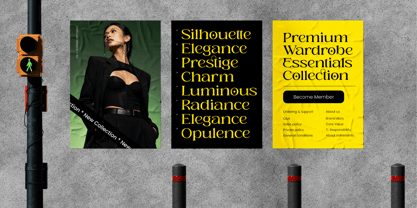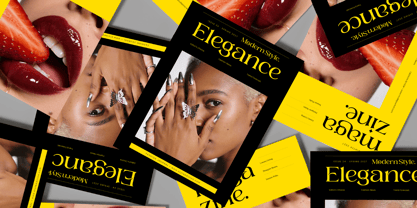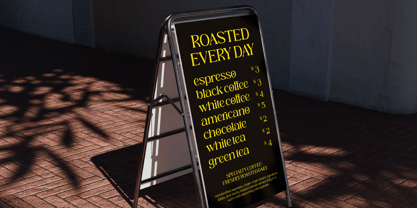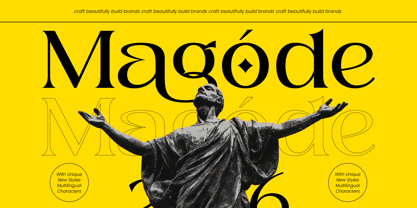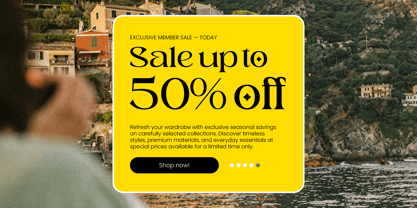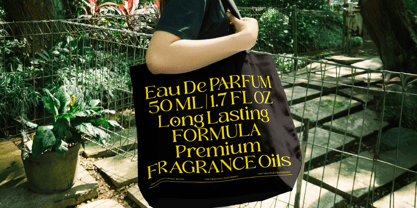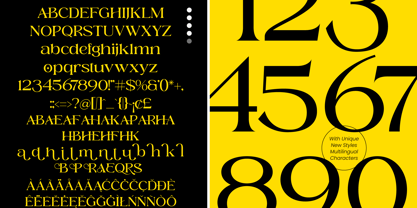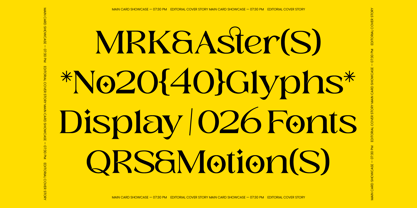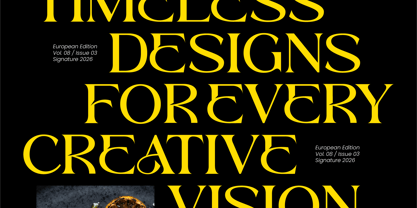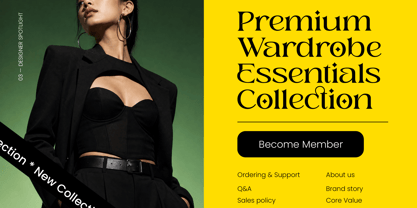
The Magode Font Family was designed by Heru Utama Putra and published by Timelesstype Studio. Magode contains 2 styles and family package options. More about this family
Elevate your design projects with a touch of timeless sophistication and unparalleled grace. Magode - Collection Modern Serif is a masterpiece of sophisticated typography, blending the classic foundations of traditional serifs with a bold, modern serif aesthetic. Its striking high-contrast strokes and refined silhouettes command attention, ensuring that your headlines and titles exude an aura of premium quality and professional polish.
Magode